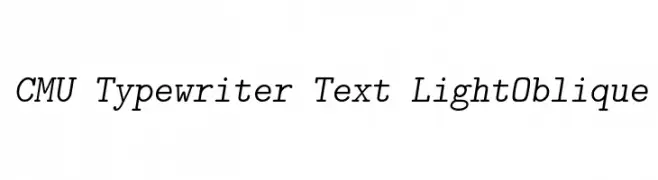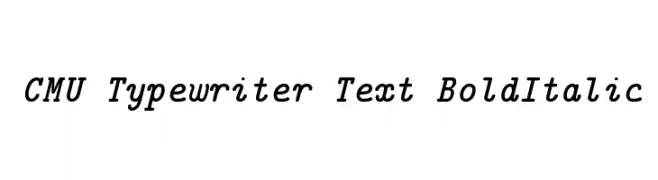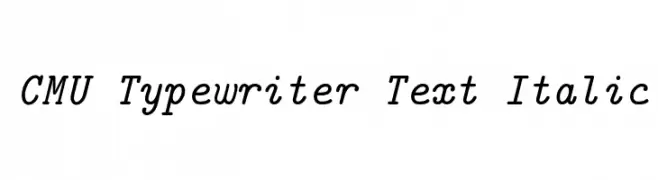
A light oblique typewriter-style font with monospaced characters.
A bold, italicized typewriter-style font with monospaced characters.
A classic italic typewriter font with medium contrast and monospaced characters.